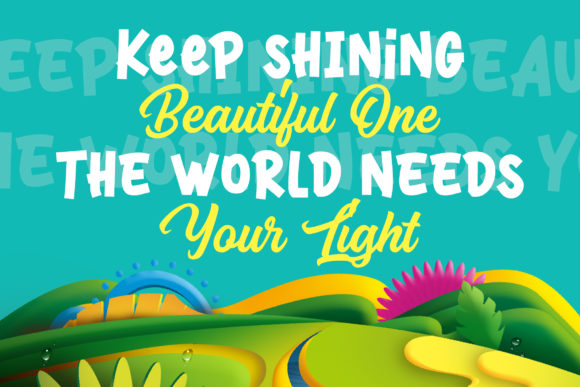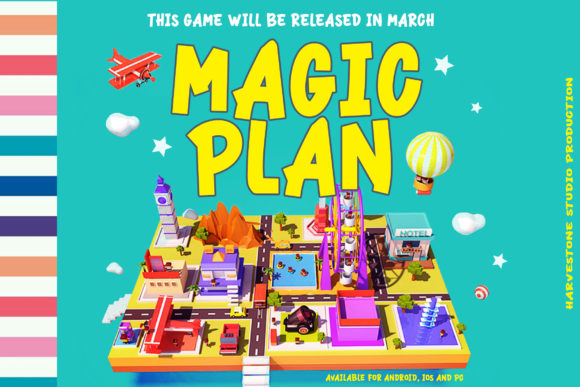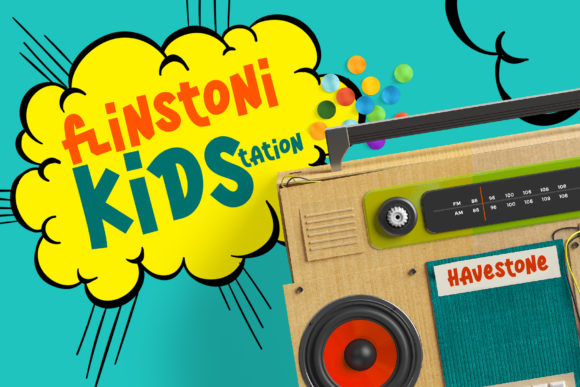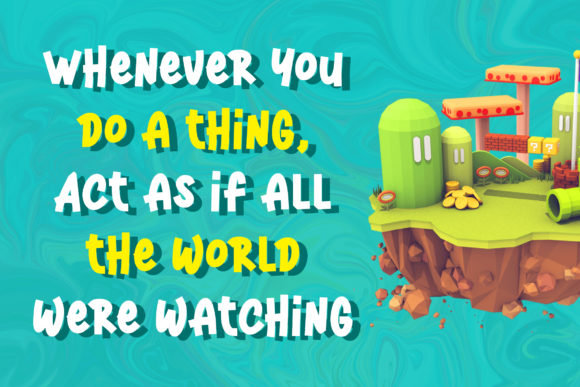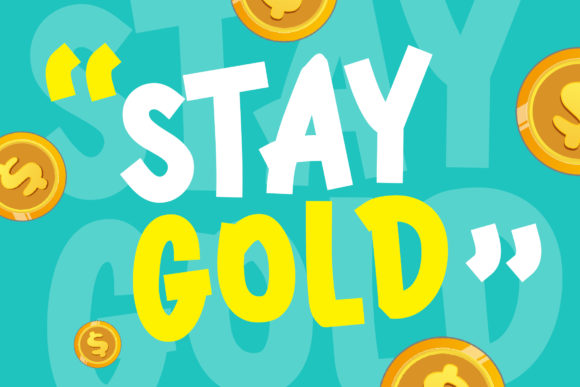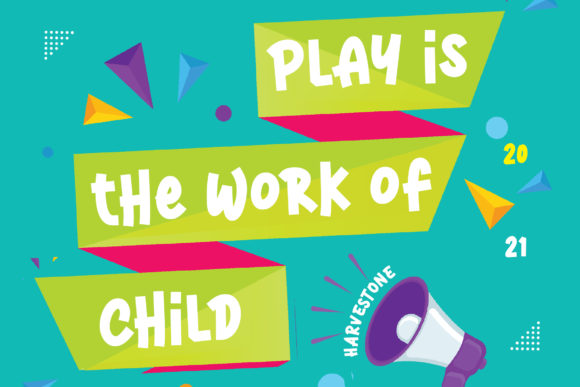
Introducing Harvestone Font: The Playful and Quirky Display Font for Creative Projects
Are you a designer, crafter, or educator looking for a font that embodies playfulness and authenticity? Look no further than Harvestone Font! This cute and quirky display font is perfect for adding a touch of whimsy to any children’s activity or school project. With its chunky lettered design, Harvestone Font is sure to make your designs come alive!
What is Harvestone Font?
Harvestone Font is a display font designed to capture the imagination of children and adults alike. Its playful and quirky design makes it perfect for a variety of creative projects, from children’s books and educational materials to craft projects and DIY tutorials. The font’s chunky letters are easy to read and add a touch of fun to any design.
Key Features of Harvestone Font
- Playful and Quirky Design: Harvestone Font features a unique and playful design that is sure to capture the attention of children and adults alike.
- Chunky Lettered Design: The font’s chunky letters are easy to read and add a touch of fun to any design.
- Perfect for Children’s Activities: Harvestone Font is perfect for children’s activities, such as coloring pages, worksheets, and educational materials.
- Great for School Projects: The font is also great for school projects, such as posters, presentations, and reports.
Why Choose Harvestone Font?
There are many reasons why Harvestone Font is the perfect choice for your creative projects. Here are just a few:
- Unique Design: Harvestone Font features a unique and playful design that will set your projects apart from the rest.
- Easy to Read: The font’s chunky letters are easy to read, making it perfect for children’s activities and educational materials.
- Versatile: Harvestone Font can be used for a variety of creative projects, from children’s books to craft projects.
- Fun and Engaging: The font’s playful design is sure to make your projects more fun and engaging.
Tips and Tricks for Using Harvestone Font
Here are a few tips and tricks to help you get the most out of Harvestone Font:
- Use it for Headings: Use Harvestone Font for headings and titles to add a touch of fun and whimsy to your design.
- Pair it with Other Fonts: Pair Harvestone Font with other fonts to create a unique and interesting design.